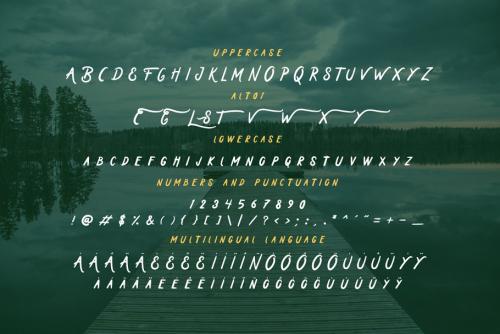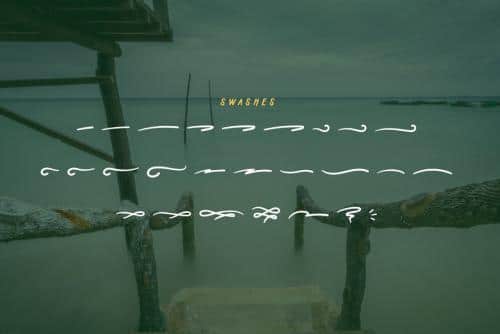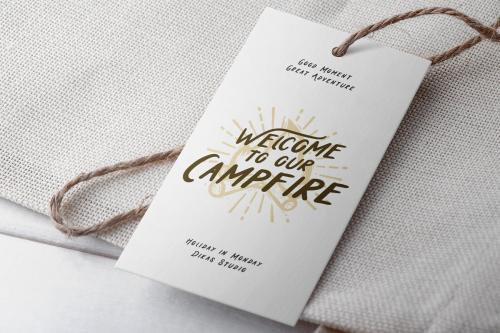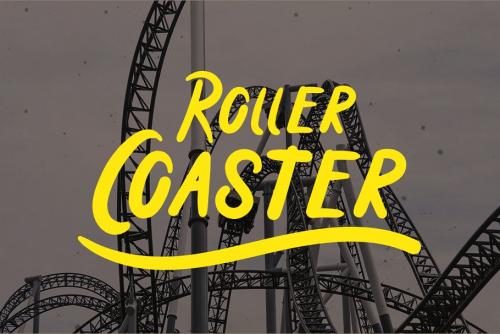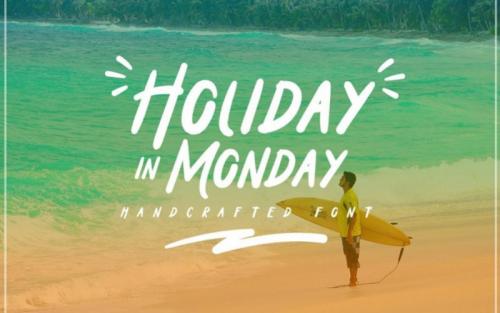
Holiday In Monday is a handcrafted font with italic style, very stylish and fun character. It’s very great for your holiday or travel theme design.
Included alternate character and swashes, make your design more stylish and you must try this font Bro. Suitable and applicable to create branding, logos, product packaging, invitation, qoutes, t-shirt, label poster etc.